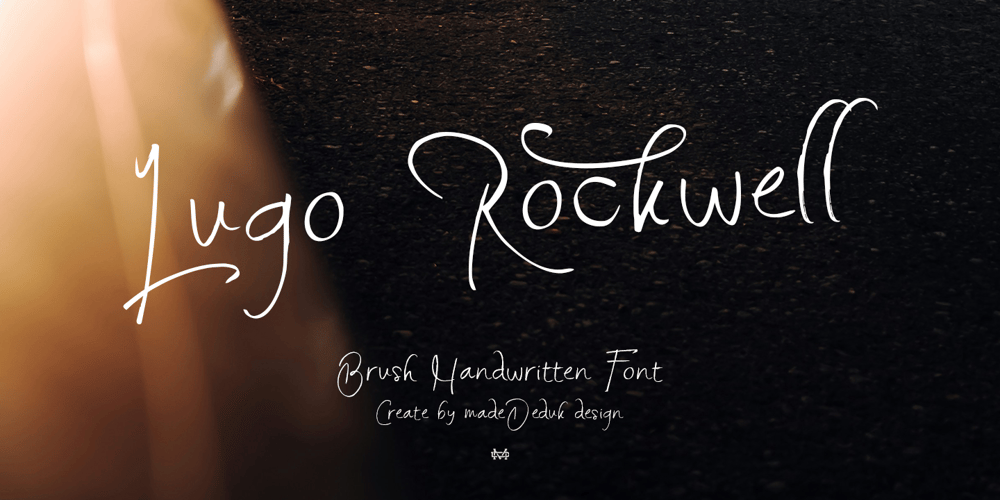
Lugo Rockwell Font Family was designed by madededuk and published by madeDeduk. Lugo Rockwell contains 1 styles and family package options. Introduce Lugo Rockwell is a brush vintage handwritten font to give an incredible impression for all your project design come with a lot ligatures and Alternative to make everything look realistic handmade handwritten.Included: Uppercase & Lowercase Number & Symbol International Glyphs Multilingual Support Ligature Alternative Hope you enjoy it.